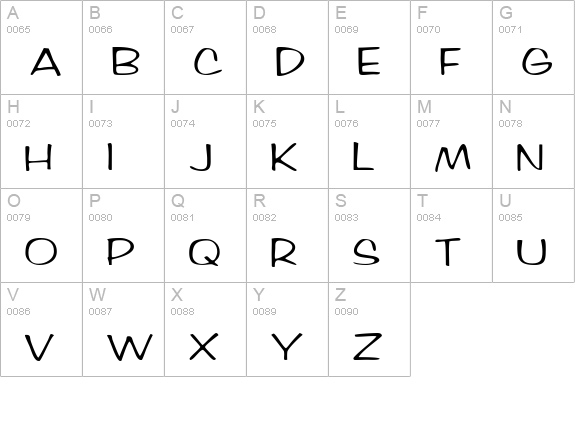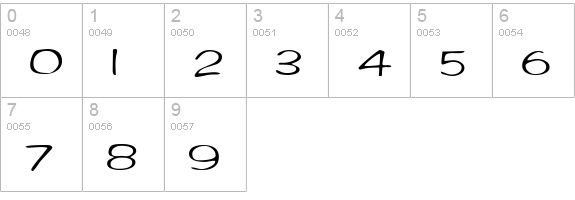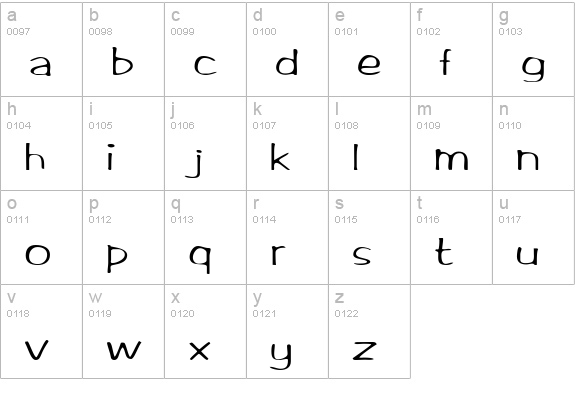
RifrafScriptSSK font is a stunning and versatile typeface that exudes elegance and sophistication. With its beautifully crafted script style, it adds a touch of charm and personality to any design project. This font is perfect for creating eye-catching logos, branding materials, invitations, and more. What makes RifrafScriptSSK font even more appealing is the fact that it is free! Yes, you heard it right. This amazing font is freely available to download at FontsMarket.com. Now you can enhance your designs with this remarkable font without spending a dime. The smooth and flowing strokes of RifrafScriptSSK font create a seamless and effortless look, guaranteed to captivate your audience. Its unique letterforms and elegant curves make it stand out from the crowd, making your designs truly one-of-a-kind. Whether you're designing for a wedding, a fashion brand, or a creative project, RifrafScriptSSK font is the perfect choice to add a touch of sophistication and class. Its versatility allows it to be used in various design contexts, making it a valuable asset in your font collection. With RifrafScriptSSK font, you can easily create stunning and professional designs that leave a lasting impression. So why wait? Head over to FontsMarket.com now and download this beautiful font for free. Elevate your designs and make them truly exceptional with RifrafScriptSSK font.